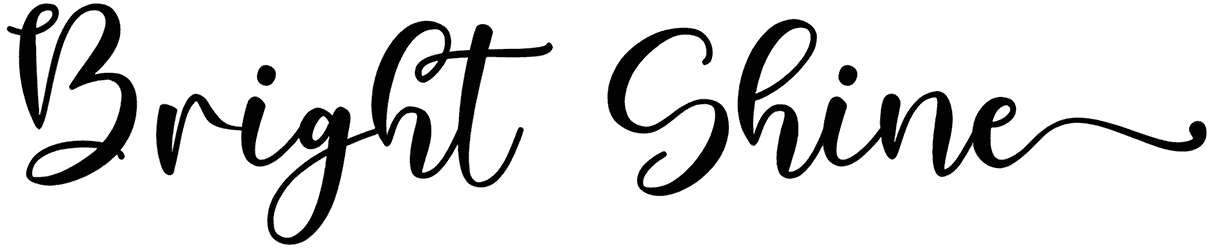
Bright Shine Font
For writing love letters and conveying the most tender feelings, there is nothing better than Bright Shine. The rhythmic and classic twists of this script font can express your poetic feelings well and leave the same pleasant effect on the audience that you are considering.
The natural aesthetics of this feminine font are ideal for stationery packaging design, logo, tattoo, and calligraphy exhibitions, and can bring a peaceful state to your audience’s eyes.